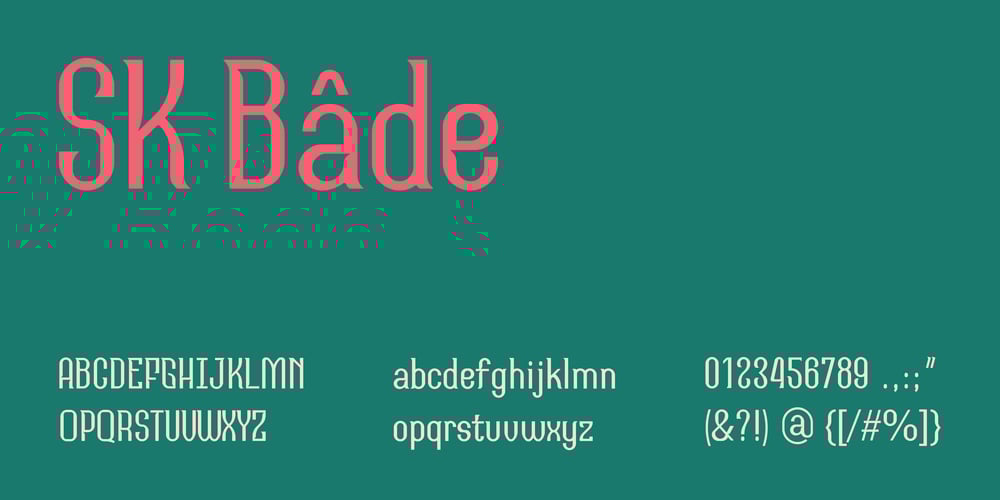
SK Bade
SK Bade font
SK Bade Font Family was designed by Salih Kizilkaya and published by Salih Kizilkaya. SK Bade contains 1 styles and family package options. SK Bade is a demi serif and condensed font. It was designed by Salih Kızılkaya in 2020. This is a completely decorative font, but legibility is at the forefront. In this way, it can be used easily in long texts.